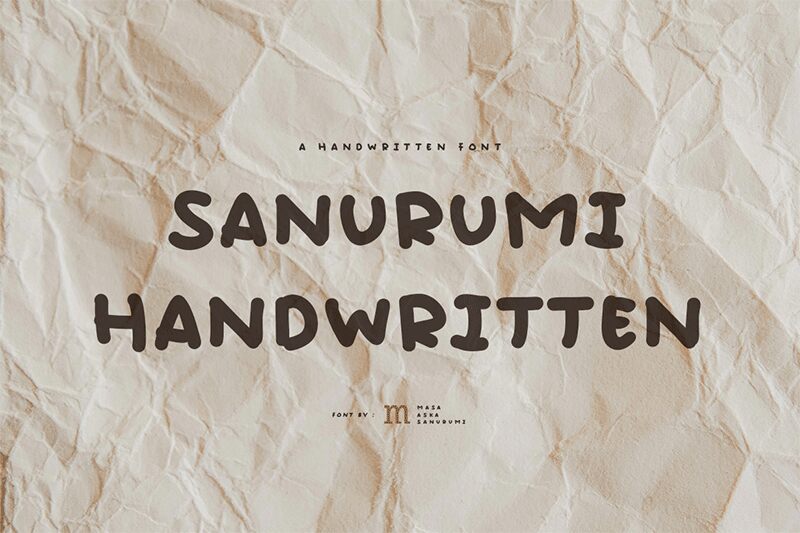
Sanurumi Handwritten, designed by Masa Aska Sanurumi, encapsulates the essence of personal touch in its semi-light strokes and artful character. With a style that resonates with the authenticity of handcrafted work, this font blends the casual elegance of handwritten script with legible design, making it not only aesthetically appealing but also highly versatile.
The delicate yet firm lines of Sanurumi Handwritten convey an intimate and approachable feel, perfect for designs that aim to evoke warmth and familiarity. From heartfelt invitations to boutique branding, its unique character ensures a standout presence that is both engaging and memorable.
Embrace the charm of Sanurumi Handwritten for projects where personality and distinction are key. Whether applied to print media or digital landscapes, it offers a harmonious balance between expressive flair and functional readability.